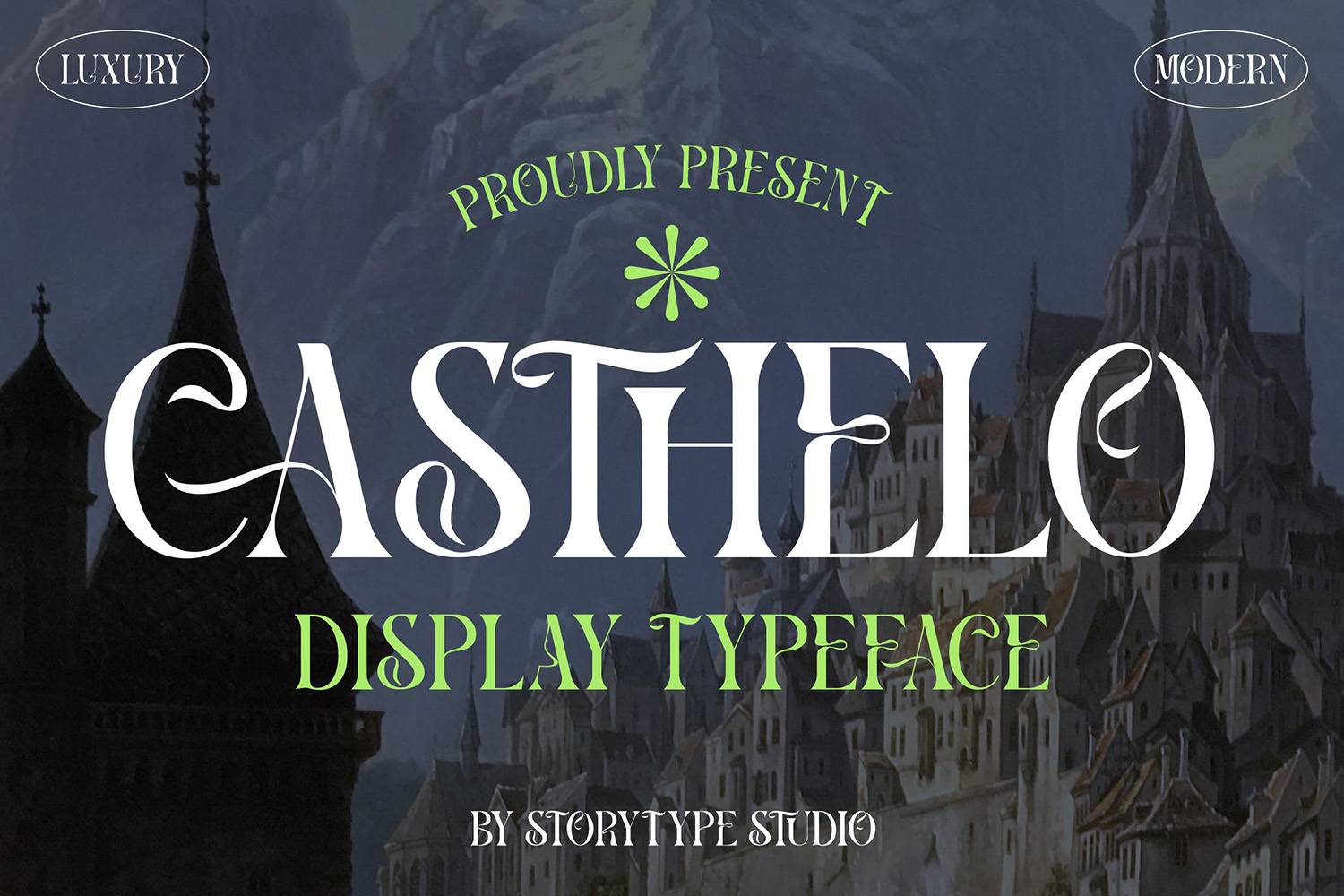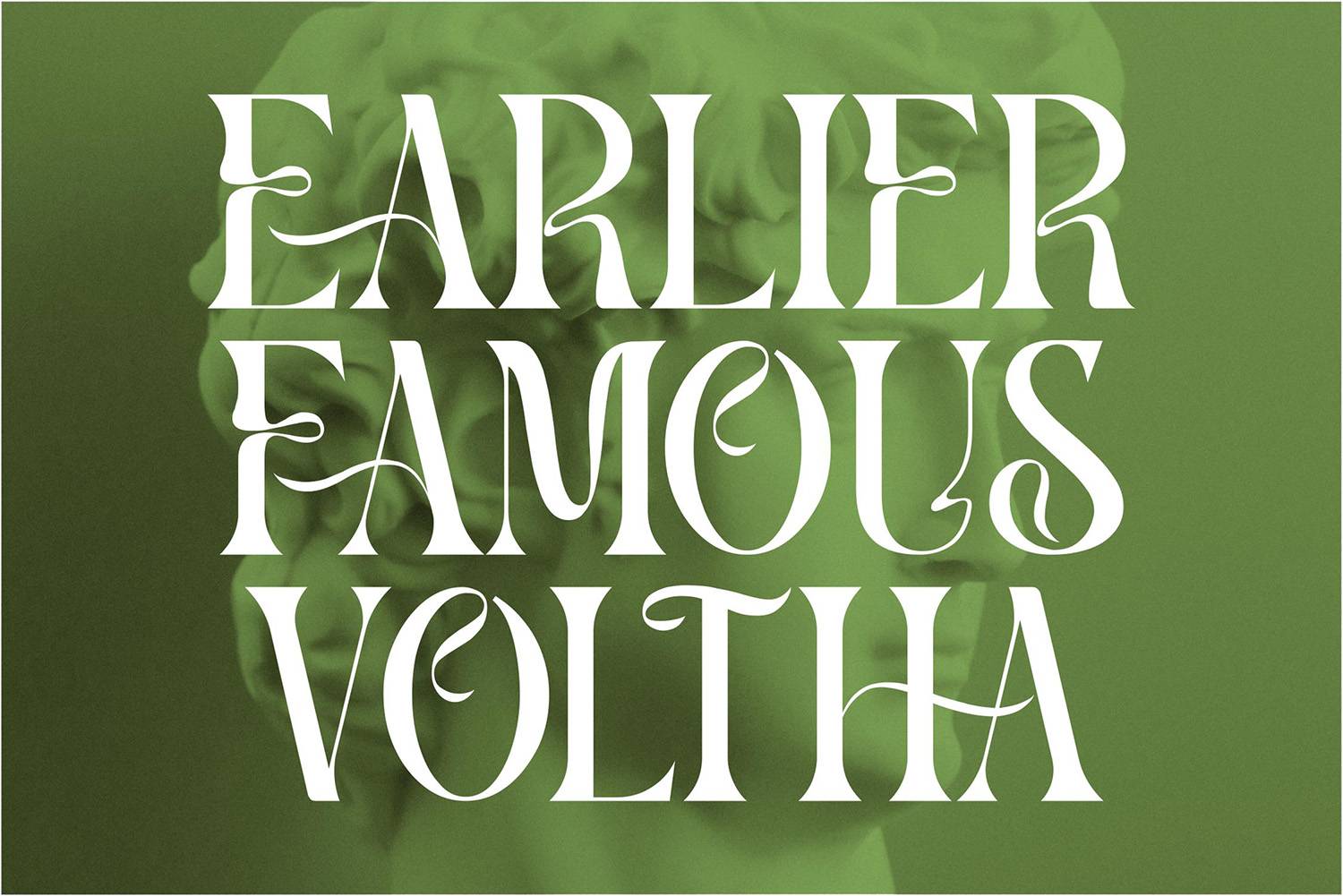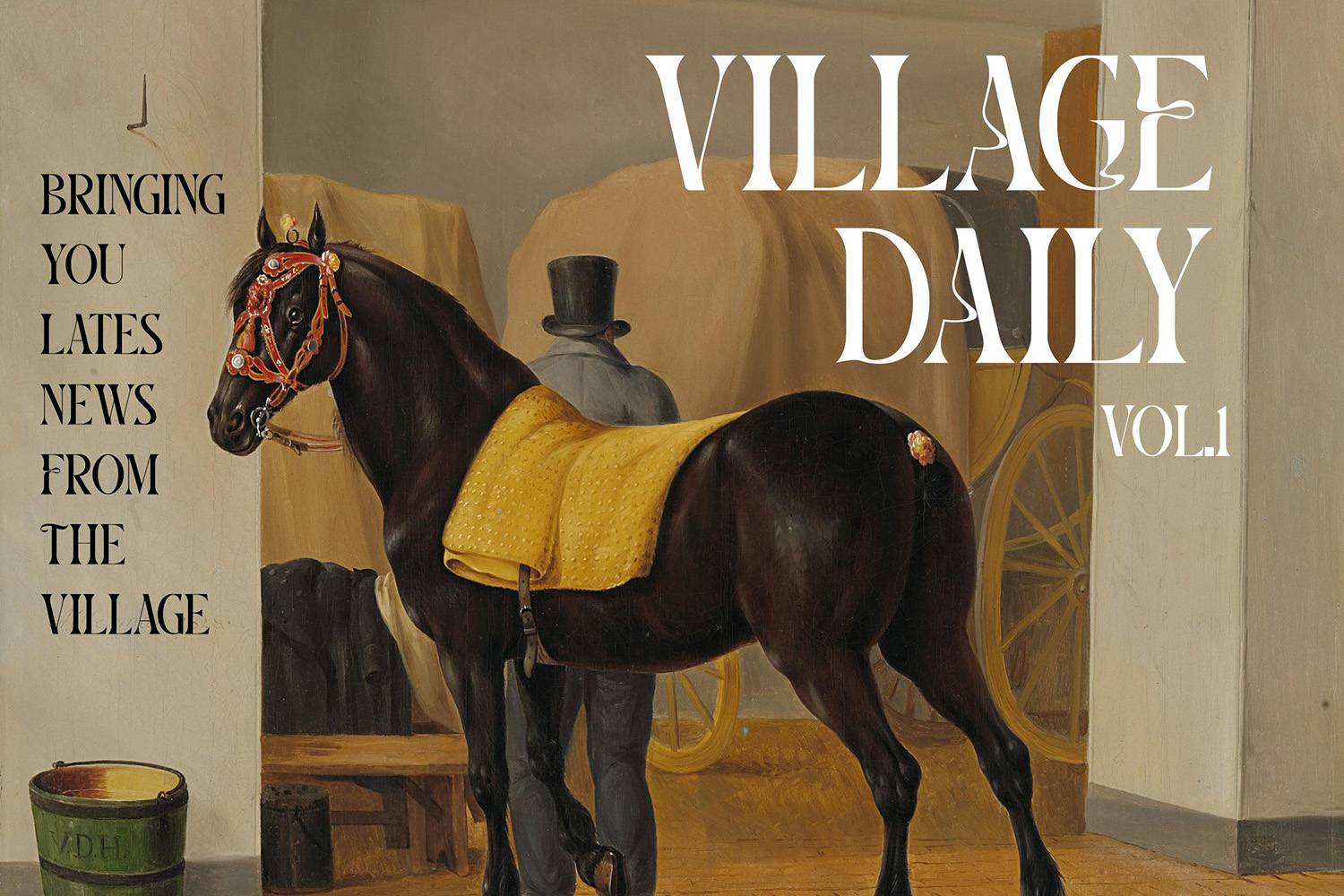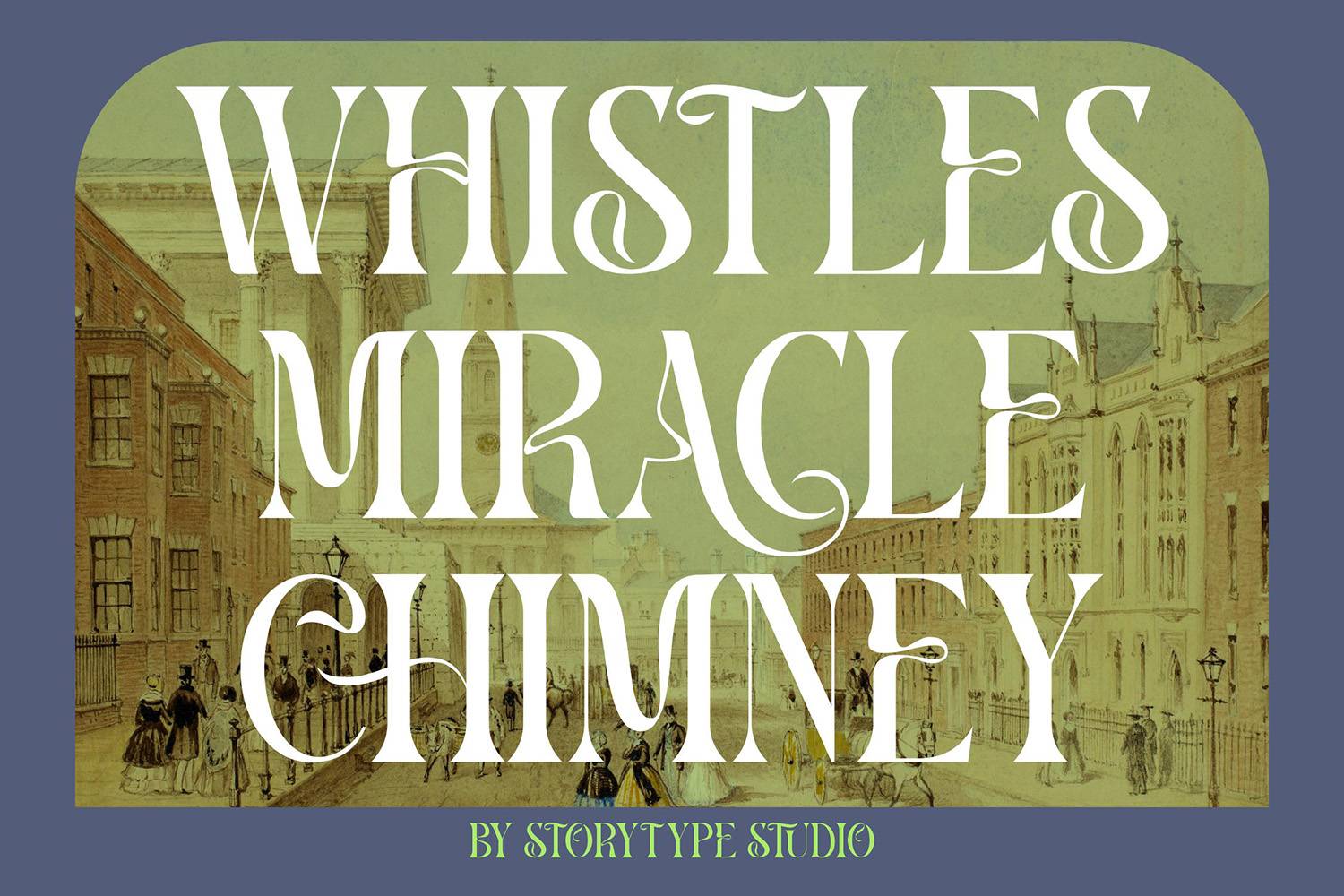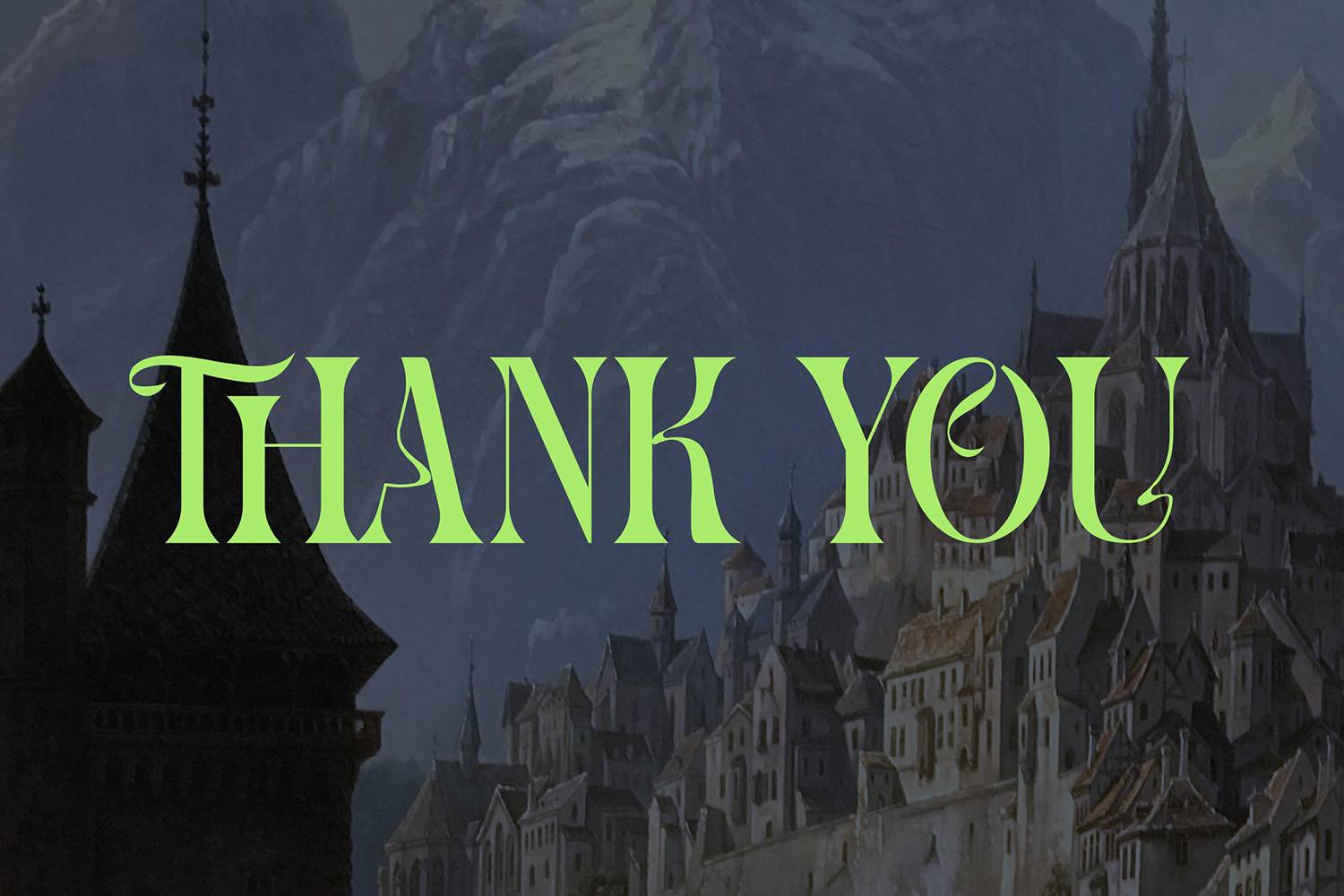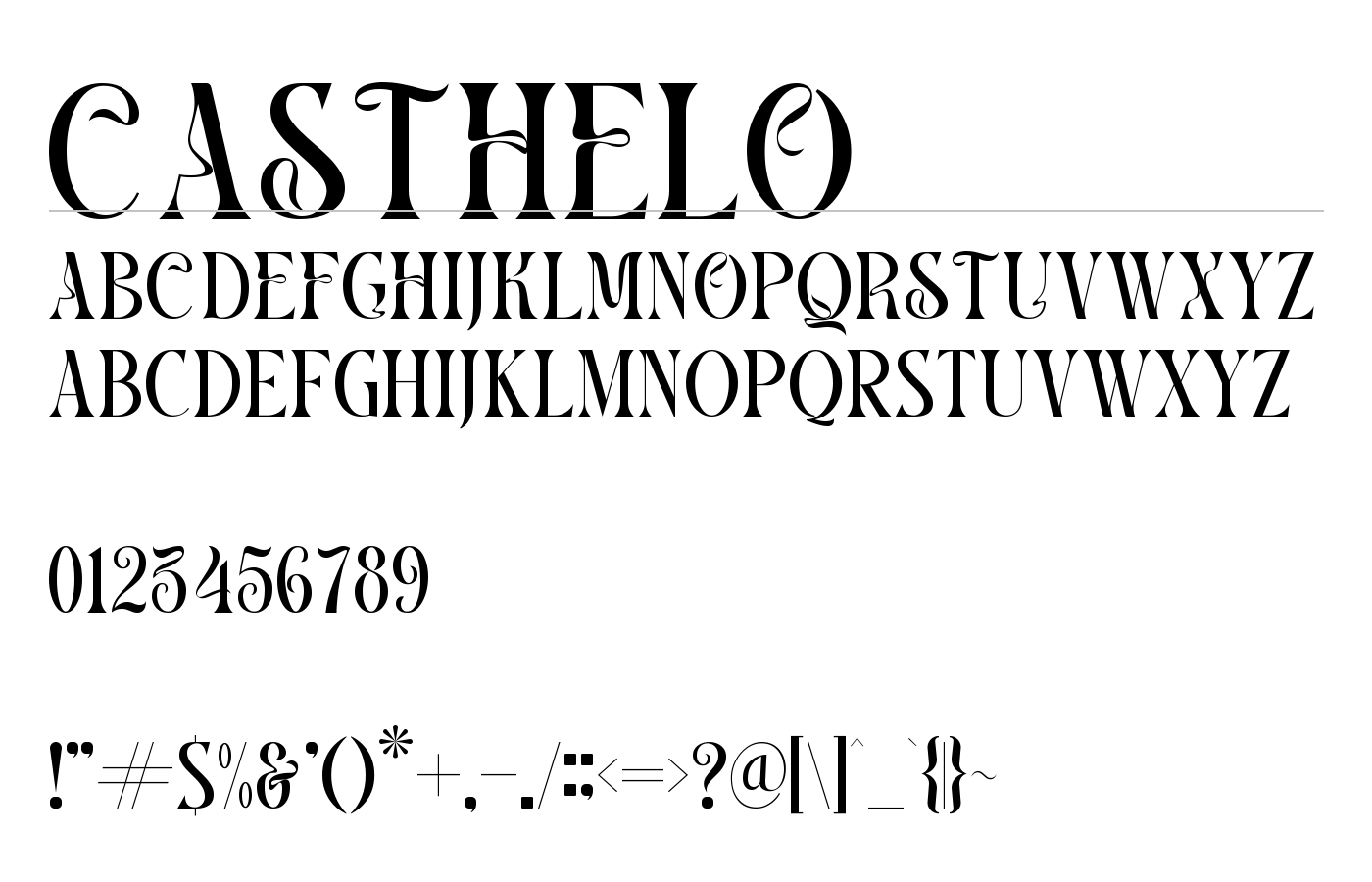
Casthello is an elegant serif font with a high contrast between thick and thin strokes, featuring delicate, decorative flourishes that add a sophisticated, artistic flair. Its narrow width and refined letterforms give it a stylish, vintage feel, making it ideal for luxury branding, fashion editorials, and striking headlines that demand attention with a touch of classic charm.
Casthello Font